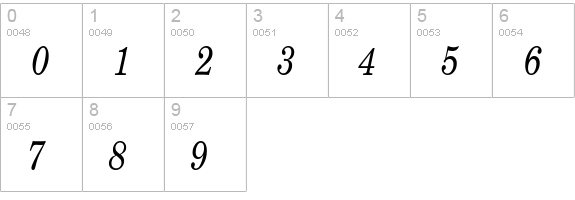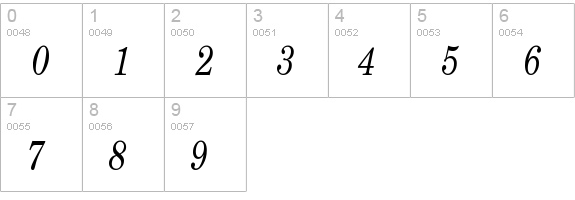
NewCenturySch 8 font is a sleek and modern typeface that exudes elegance and sophistication. With its clean lines and balanced proportions, this font is perfect for a wide range of design projects, from branding to editorial design. The NewCenturySch 8 font offers a timeless appeal that is sure to elevate any project it is used in. Best of all, NewCenturySch 8 font is available for free download at FontsMarket.com. This means you can add this versatile font to your collection without any cost, making it a valuable resource for both professional designers and hobbyists alike. Don't miss out on the opportunity to enhance your designs with the stylish and versatile NewCenturySch 8 font - download it today!